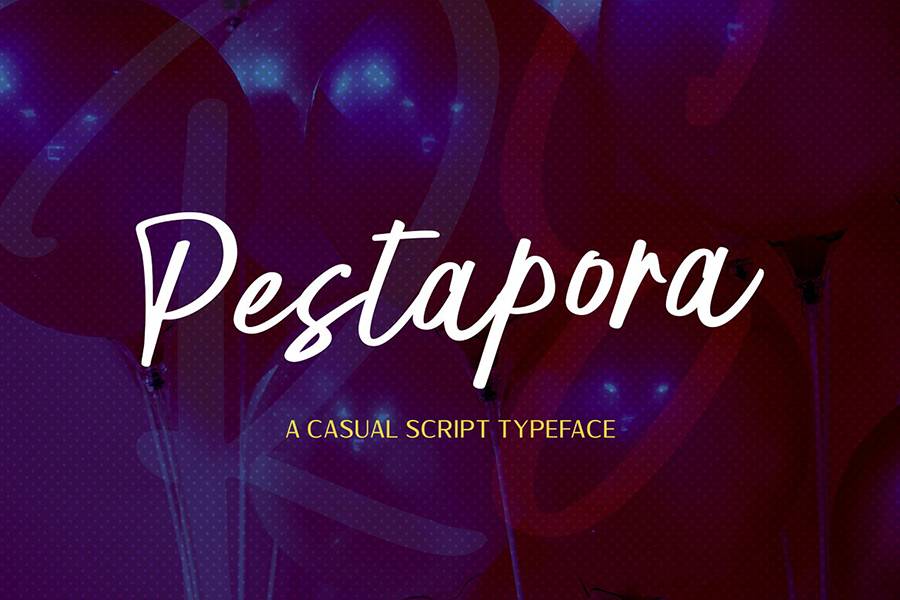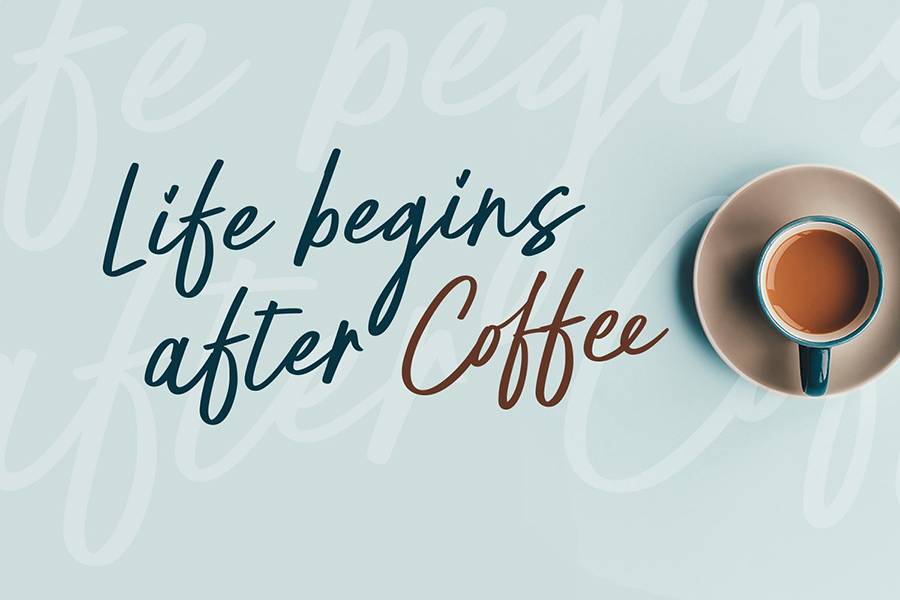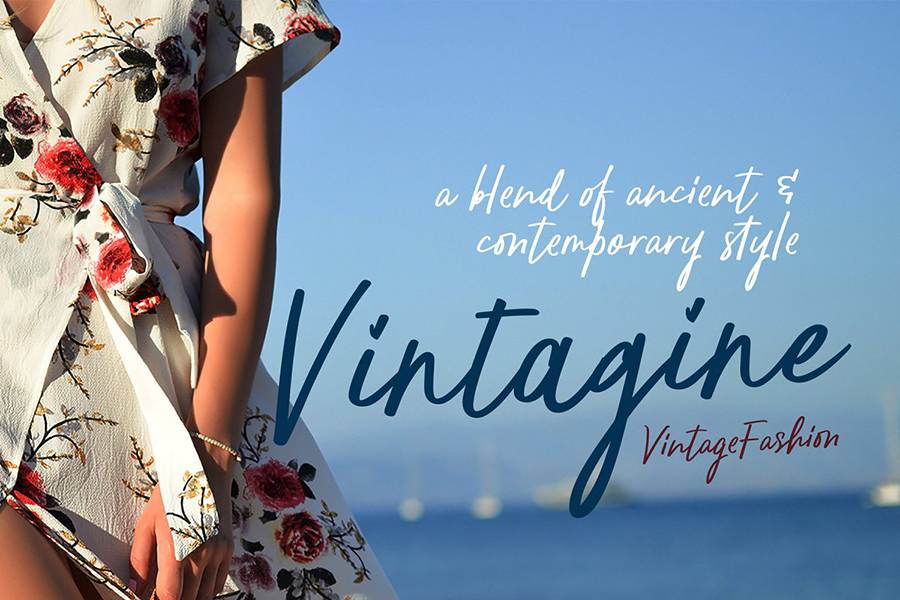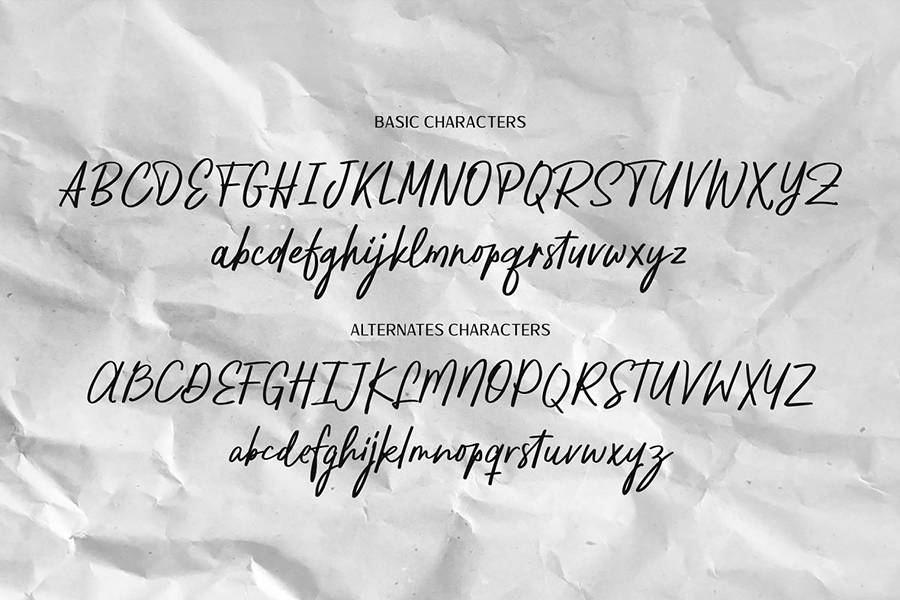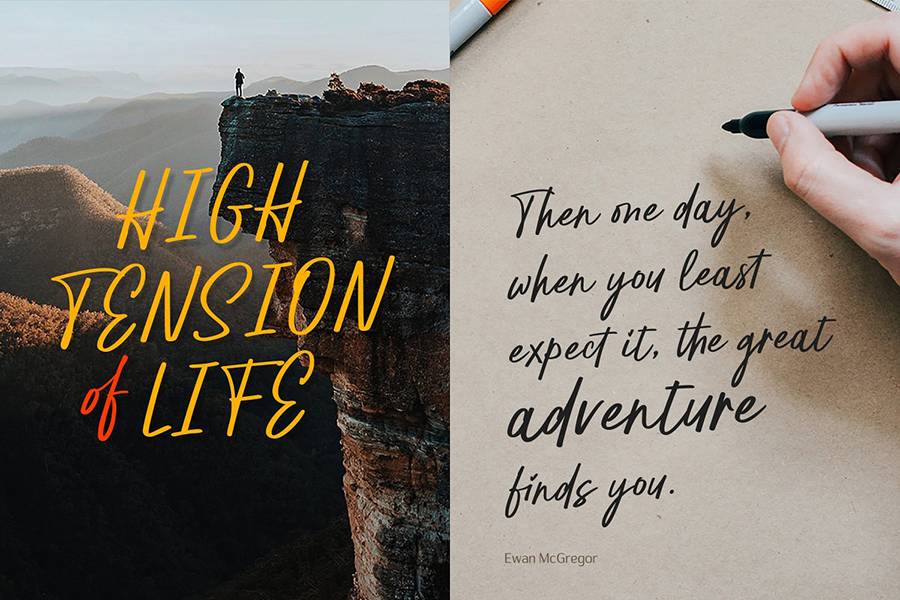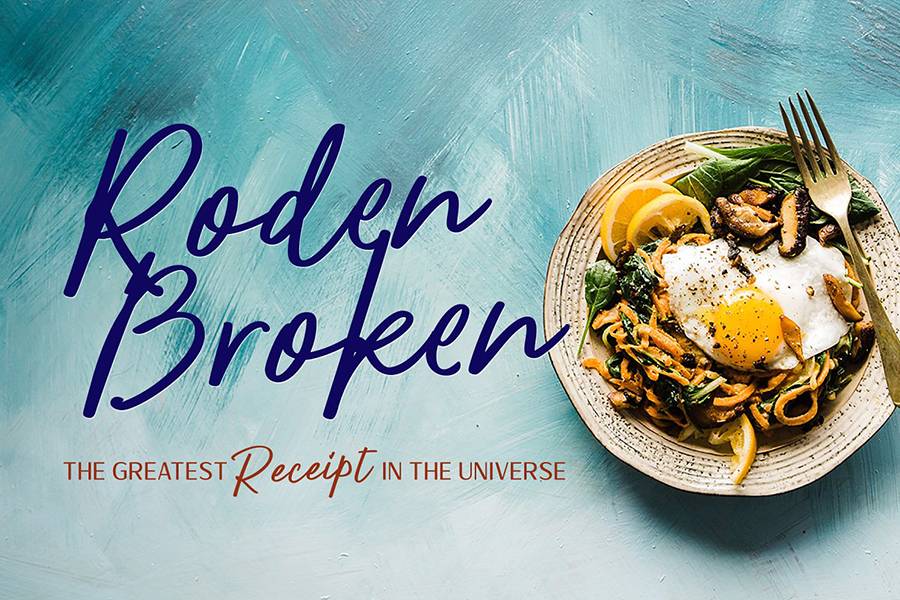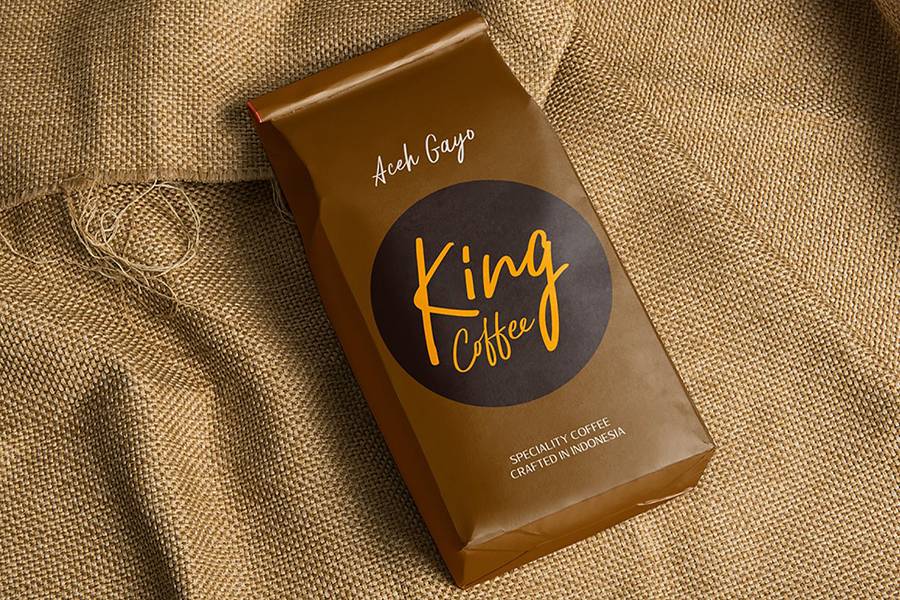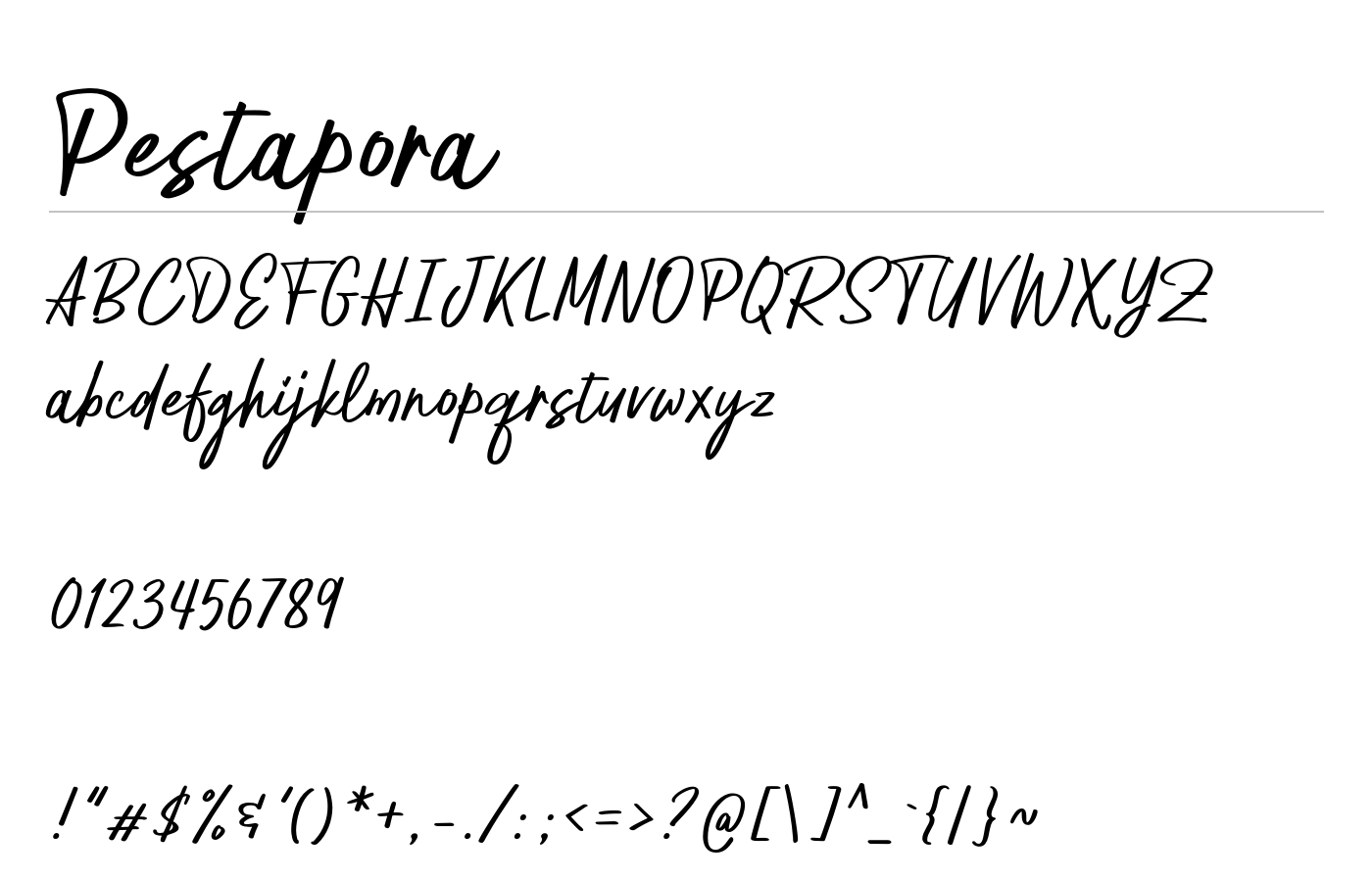
Pestapora Script Demo is a lively and elegant handwritten script font with a casual yet refined feel. Its slightly slanted, flowing letterforms feature moderate stroke contrast and smooth curves, making it perfect for adding a personal, creative touch to branding, invitations, and social media graphics. This font works best in headlines or decorative text where its modern script style can stand out and convey warmth and friendliness.
Pestapora Script Demo
About Pestapora Script Demo
| Font family | Pestapora Script Demo |
| Designer | Arwan Sutanto |